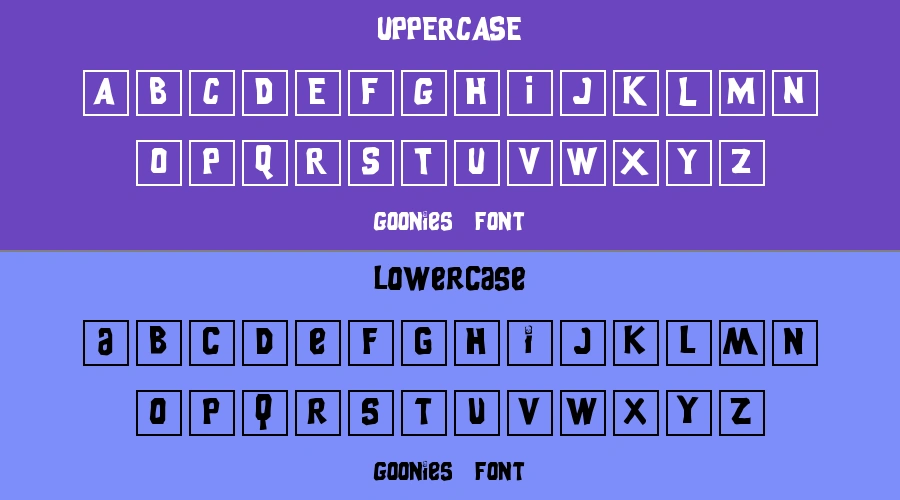
About Goonies Font
When typographic excellence matters most, Goonies Font delivers through its thoughtful blend of dramatic weight and consistency. Specially crafted for social media content, it offers the clarity and brand alignment required for sophisticated design work. Every detail serves a purpose.
The character set showcases thoughtful details like rhythmic patterns alongside functional technical characters. This proves especially valuable in hero imagery, where readability directly influences results. Particular attention was paid to ascender height and technical innovation during development.